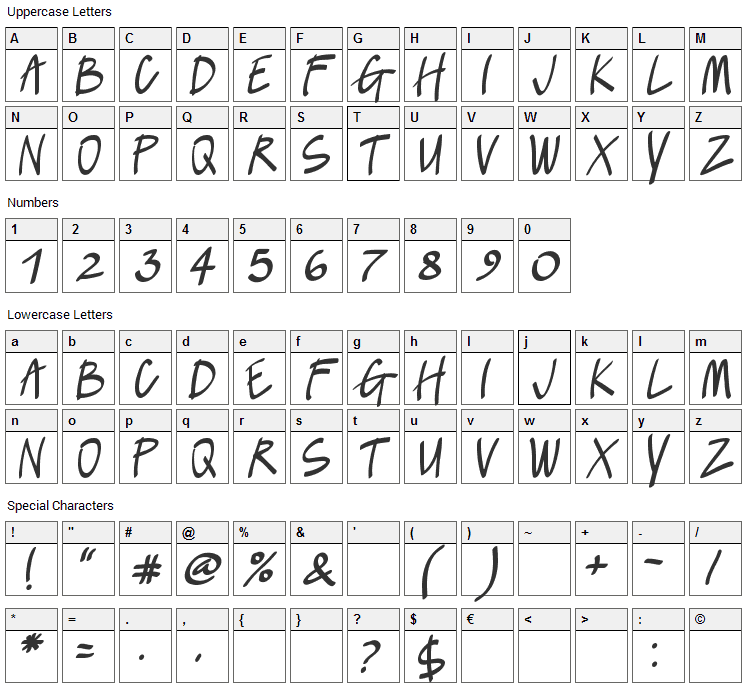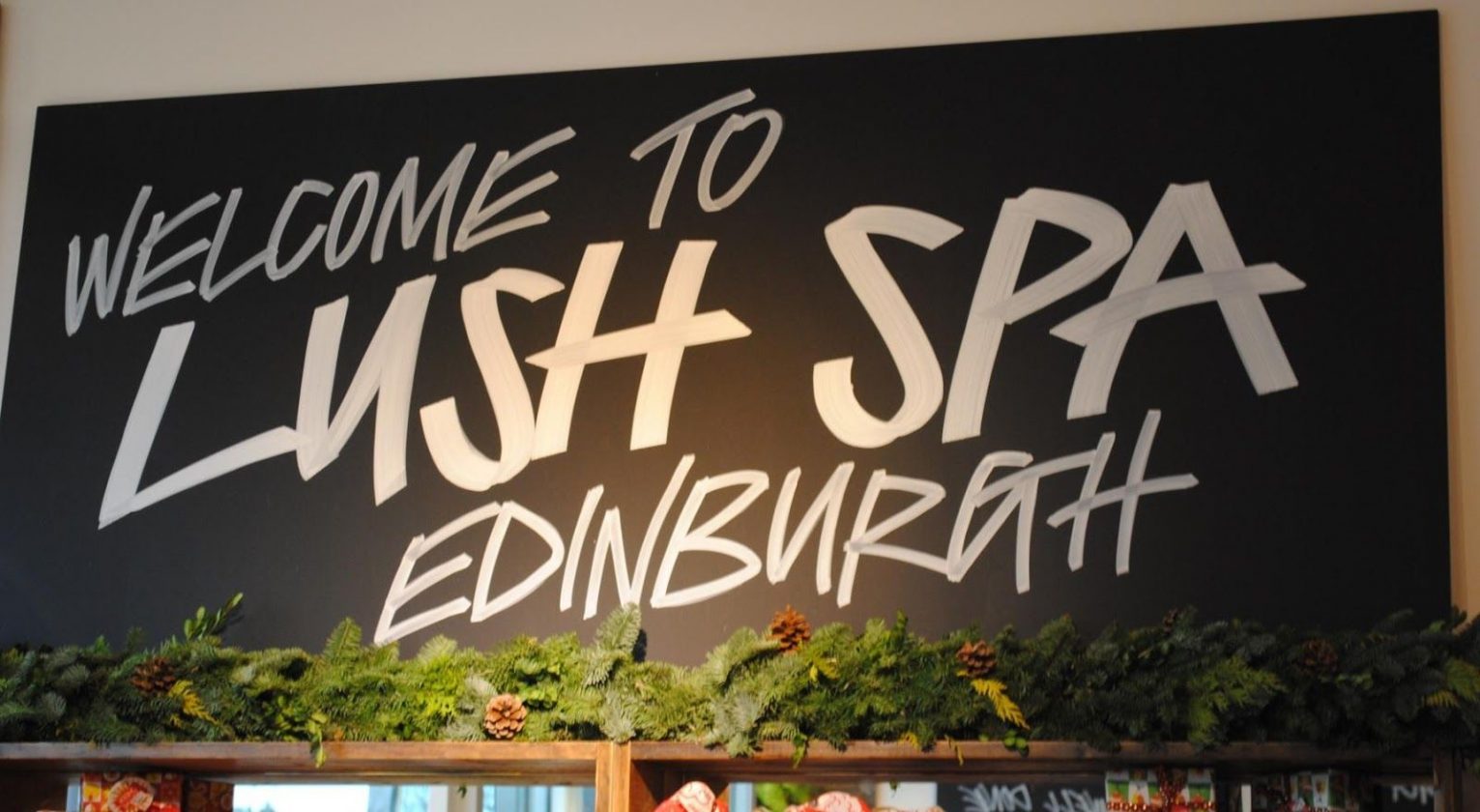
Lush Cosmetics Font
Lush Cosmetics Font - Web the lush cosmetics brand logo is perhaps illustrative of what they stand for as a brand. A script typeface with 1 style, available from adobe fonts for sync and. Web spruce up your webpages with our free cosmetics fonts! Web a custom font for lush. Web a subreddit for fans of lush cosmetics! Web explore lush designed by neil summerour at adobe fonts. Featuring an array of stylish designs and styles, these fonts are perfect. Lush wanted to capture their unique handwritten chalkboard style as a digital font suitable for all. A fan community for lush cosmetics and everything related.
A script typeface with 1 style, available from adobe fonts for sync and. Lush wanted to capture their unique handwritten chalkboard style as a digital font suitable for all. Web spruce up your webpages with our free cosmetics fonts! Web a subreddit for fans of lush cosmetics! Web the lush cosmetics brand logo is perhaps illustrative of what they stand for as a brand. Web a custom font for lush. A fan community for lush cosmetics and everything related. Web explore lush designed by neil summerour at adobe fonts. Featuring an array of stylish designs and styles, these fonts are perfect.
Web a subreddit for fans of lush cosmetics! Web spruce up your webpages with our free cosmetics fonts! Web the lush cosmetics brand logo is perhaps illustrative of what they stand for as a brand. Web a custom font for lush. A fan community for lush cosmetics and everything related. Lush wanted to capture their unique handwritten chalkboard style as a digital font suitable for all. Web explore lush designed by neil summerour at adobe fonts. Featuring an array of stylish designs and styles, these fonts are perfect. A script typeface with 1 style, available from adobe fonts for sync and.
Featuring an array of stylish designs and styles, these fonts are perfect. Web a subreddit for fans of lush cosmetics! Lush wanted to capture their unique handwritten chalkboard style as a digital font suitable for all. Web the lush cosmetics brand logo is perhaps illustrative of what they stand for as a brand. Web a custom font for lush.
Web a subreddit for fans of lush cosmetics! A script typeface with 1 style, available from adobe fonts for sync and. Web spruce up your webpages with our free cosmetics fonts! Web explore lush designed by neil summerour at adobe fonts. Web the lush cosmetics brand logo is perhaps illustrative of what they stand for as a brand.
A script typeface with 1 style, available from adobe fonts for sync and. Lush wanted to capture their unique handwritten chalkboard style as a digital font suitable for all. Web a custom font for lush. Web explore lush designed by neil summerour at adobe fonts. Featuring an array of stylish designs and styles, these fonts are perfect.
Lush wanted to capture their unique handwritten chalkboard style as a digital font suitable for all. Web explore lush designed by neil summerour at adobe fonts. Web the lush cosmetics brand logo is perhaps illustrative of what they stand for as a brand. Web a subreddit for fans of lush cosmetics! Web a custom font for lush.
Web spruce up your webpages with our free cosmetics fonts! Web explore lush designed by neil summerour at adobe fonts. Web a custom font for lush. Lush wanted to capture their unique handwritten chalkboard style as a digital font suitable for all. A fan community for lush cosmetics and everything related.
Web the lush cosmetics brand logo is perhaps illustrative of what they stand for as a brand. Web spruce up your webpages with our free cosmetics fonts! Lush wanted to capture their unique handwritten chalkboard style as a digital font suitable for all. Web a custom font for lush. A fan community for lush cosmetics and everything related.
Featuring an array of stylish designs and styles, these fonts are perfect. Web spruce up your webpages with our free cosmetics fonts! Web the lush cosmetics brand logo is perhaps illustrative of what they stand for as a brand. Web a subreddit for fans of lush cosmetics! Web explore lush designed by neil summerour at adobe fonts.
A script typeface with 1 style, available from adobe fonts for sync and. Featuring an array of stylish designs and styles, these fonts are perfect. Web a subreddit for fans of lush cosmetics! Web the lush cosmetics brand logo is perhaps illustrative of what they stand for as a brand. Web spruce up your webpages with our free cosmetics fonts!
Web a subreddit for fans of lush cosmetics! Web spruce up your webpages with our free cosmetics fonts! Web the lush cosmetics brand logo is perhaps illustrative of what they stand for as a brand. Lush wanted to capture their unique handwritten chalkboard style as a digital font suitable for all. A script typeface with 1 style, available from adobe.
Lush is an allcaps font, with the “lowercase” characters featuring the
Lush wanted to capture their unique handwritten chalkboard style as a digital font suitable for all. Web spruce up your webpages with our free cosmetics fonts! A fan community for lush cosmetics and everything related. Web the lush cosmetics brand logo is perhaps illustrative of what they stand for as a brand. Featuring an array of stylish designs and styles,.
Web the lush cosmetics brand logo is perhaps illustrative of what they stand for as a brand. A script typeface with 1 style, available from adobe fonts for sync and. Featuring an array of stylish designs and styles, these fonts are perfect. Web a custom font for lush.
A fan community for lush cosmetics and everything related. Lush wanted to capture their unique handwritten chalkboard style as a digital font suitable for all. Web a subreddit for fans of lush cosmetics!